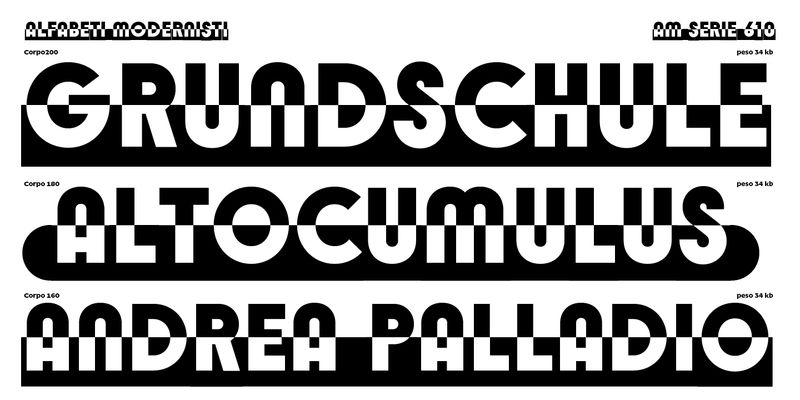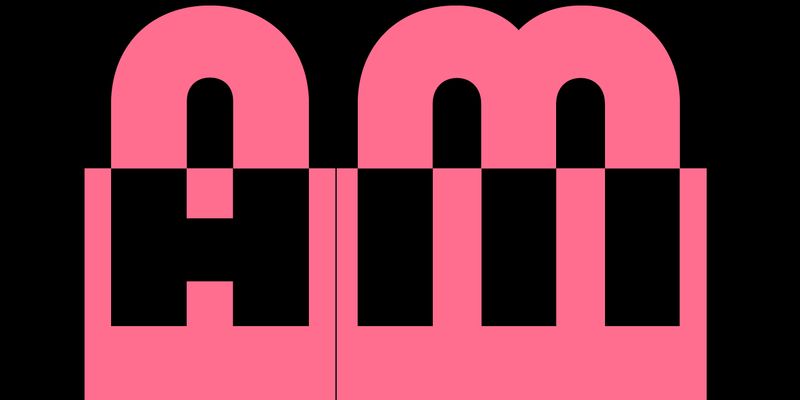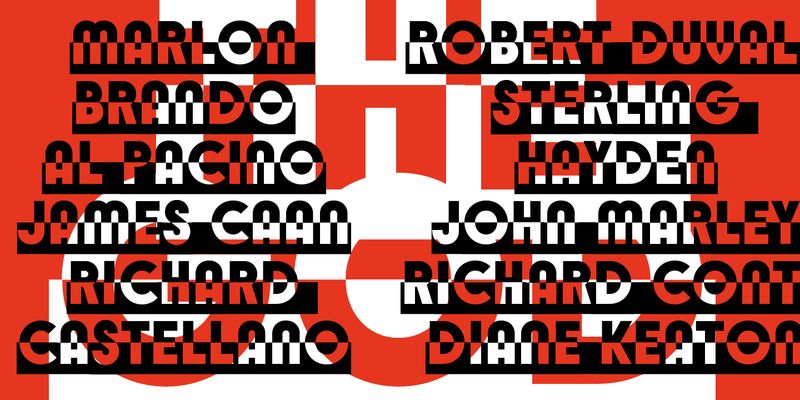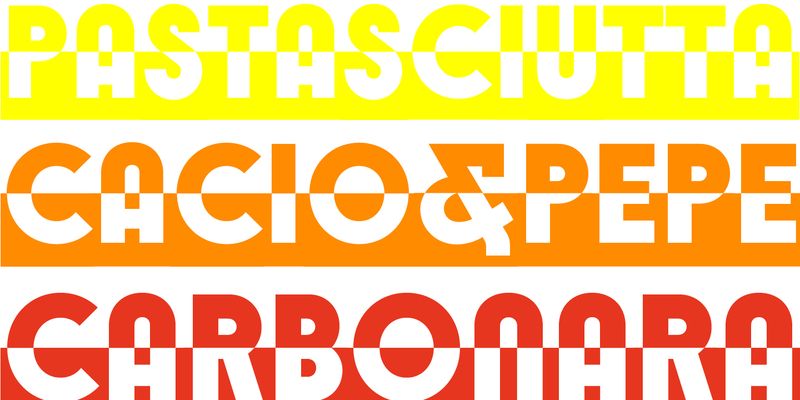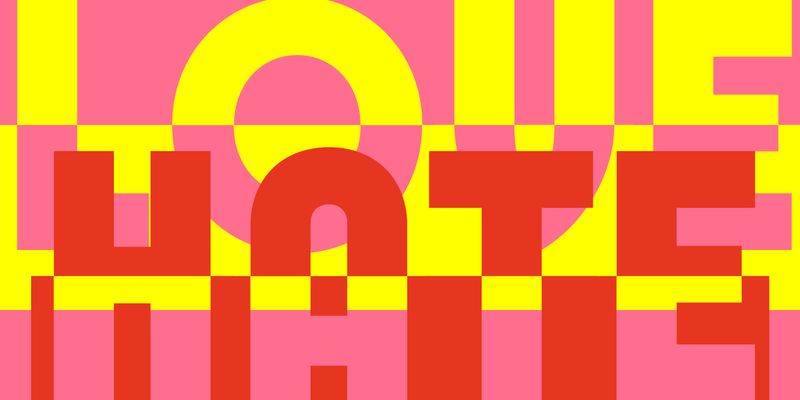
Serie 610 is an all-caps typeface with a striking feature: all letters and glyphs are divided into an upper black half and a lower white half on a black band. In keeping with the Art Deco tendency of the 1930s, the letterforms are based on straight lines and circles. Notable shapes are the round apex of A, the ‘horseshoe’ N, and the vertical tail of Q.
Serie 610 was produced as a wood type by Xilografia Milanese (Milan) in the 1930s, and was released in several body sizes ranging from 3 to 40 lines (roughly 36–500 points). We know that the company also manufactured typecases, miniature cabinets (containing cases of different designs of type) and other items for printers. We don’t know when the company was founded, but it advertised in the famous Campo Grafico magazine from 1936 onwards, and closed its offices in 1968.
The typeface was offered along with angled, rounded, arrowed, and forked pieces of the band to be placed at the beginning and end of titles of one or a few words. These special sorts – an idea picked up from decorative styles successfully purveyed by 19th-century typefounders – have been reproduced in the digital revival and are available through OpenType features.
‘The AM Serie 610 digital revival – assures the designer, Riccardo Olocco – is very true to the original, with virtually no modified letterforms or glyphs. Each wood letter in the original Serie 610 was produced with a thin white vertical line on the left and right sides, so that a word set in this typeface would have had a thin line between each letter. The repetition of these thin lines creates a kind of visual Larsen effect in the digital environment, and so the letters of AM Serie 610 are now all connected without lines between them. However, a version of the letters with white lines has been included as a stylistic set which can be activated via OpenType features.’
OpenType Features:
ss01 – White lines between characters
ss02 – Front and end pieces = (e); >e<; \e/; «e»